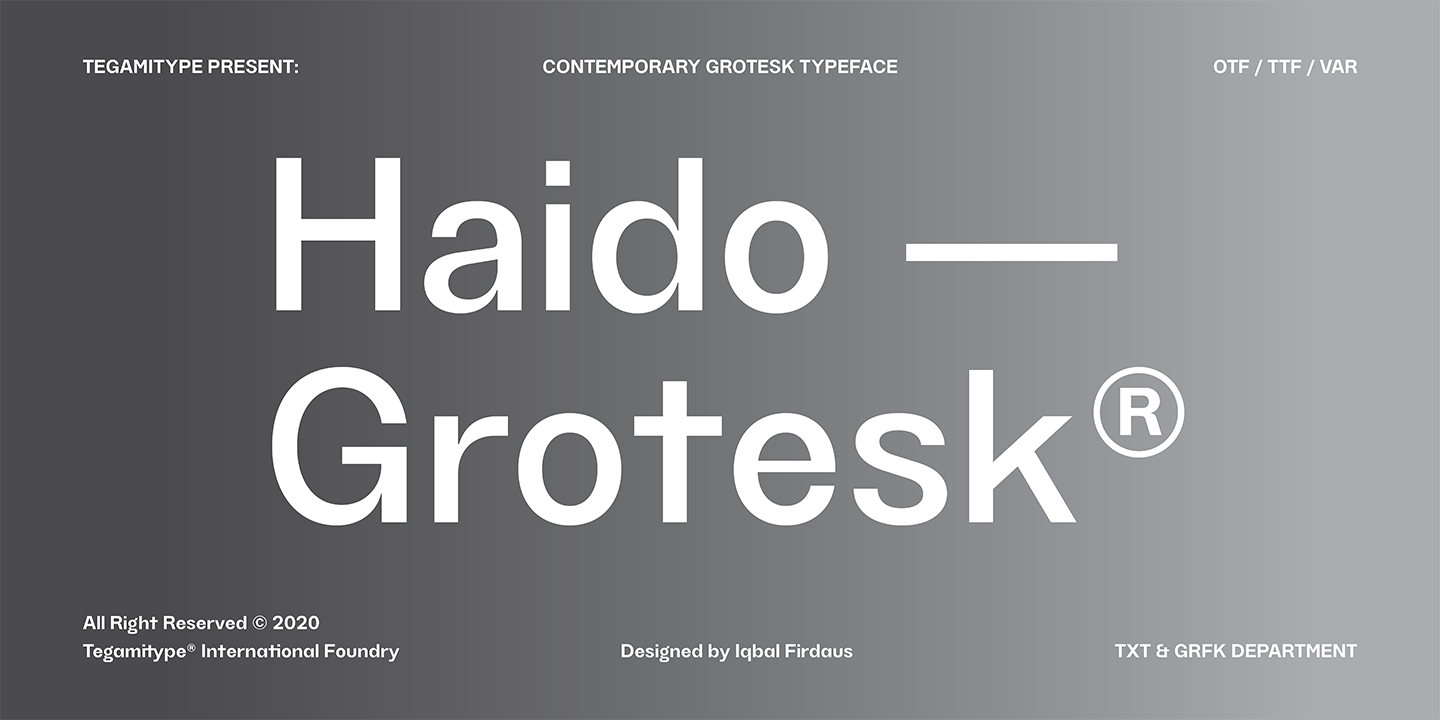
TG Haido Grotesk Font is perfect for modern corporate branding, architectural firm presentations, tech startup logos, minimalist web design, clean product packaging, contemporary magazine layouts, professional business cards, urban planning documents, industrial design portfolios, and sophisticated digital interfaces. This refined typeface brings timeless geometric elegance to any design project requiring clarity and modern sophistication.
TG Haido Grotesk Font is exciting because it represents the perfect evolution of classic grotesque typography for contemporary applications. Its clean geometric forms and precise letterforms create exceptional readability while maintaining strong visual impact, making it ideal for brands that want to communicate professionalism, innovation, and forward-thinking design sensibility to discerning audiences.
TG Haido Grotesk Font family includes multiple weights and styles: Regular, Bold, Light, Medium, Black, Thin, Condensed, Extended, Italic, and Display variants. Each style maintains the distinctive grotesque character while providing comprehensive typographic solutions for complex branding systems and multi-platform design applications requiring consistent visual hierarchy.
Whether you're designing for corporations, design agencies, or tech companies, TG Haido Grotesk Font Free Download delivers the professional excellence that modern brands demand. This sophisticated typeface combines classical typographic principles with contemporary functionality, making it essential for projects requiring both aesthetic appeal and practical performance. The font's versatile nature ensures outstanding results across print and digital environments.